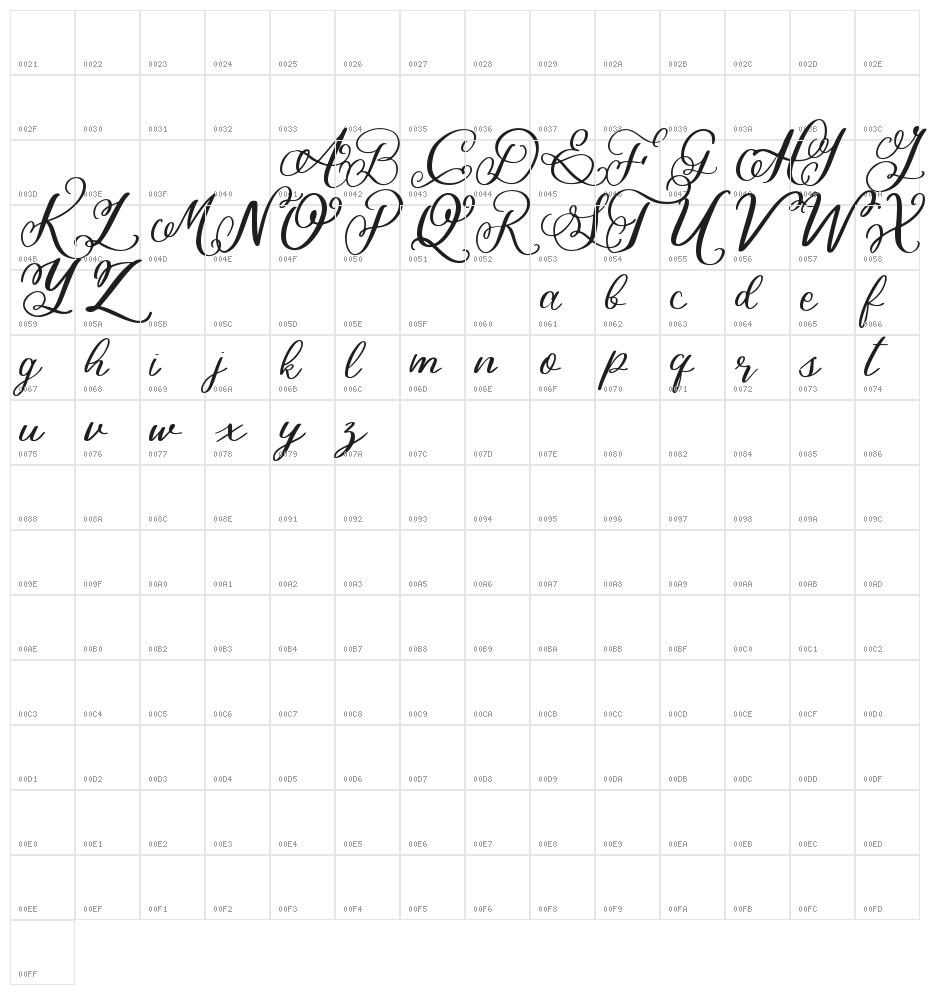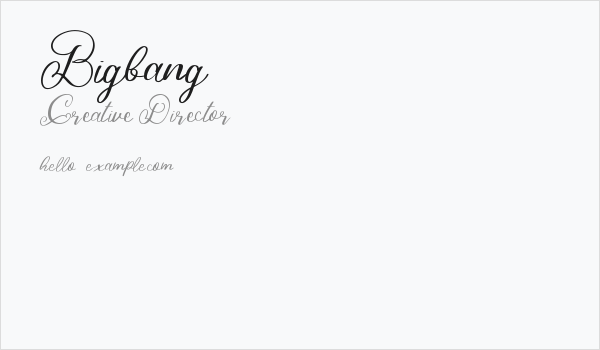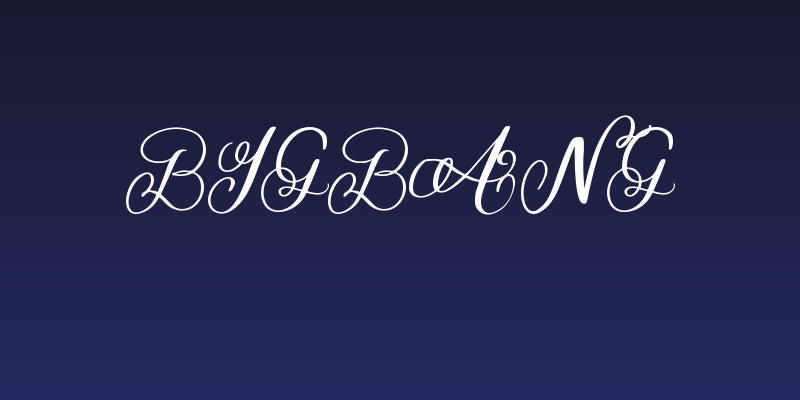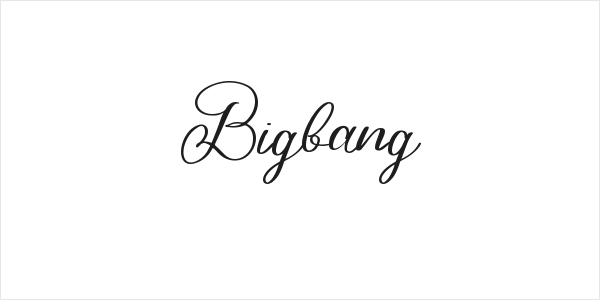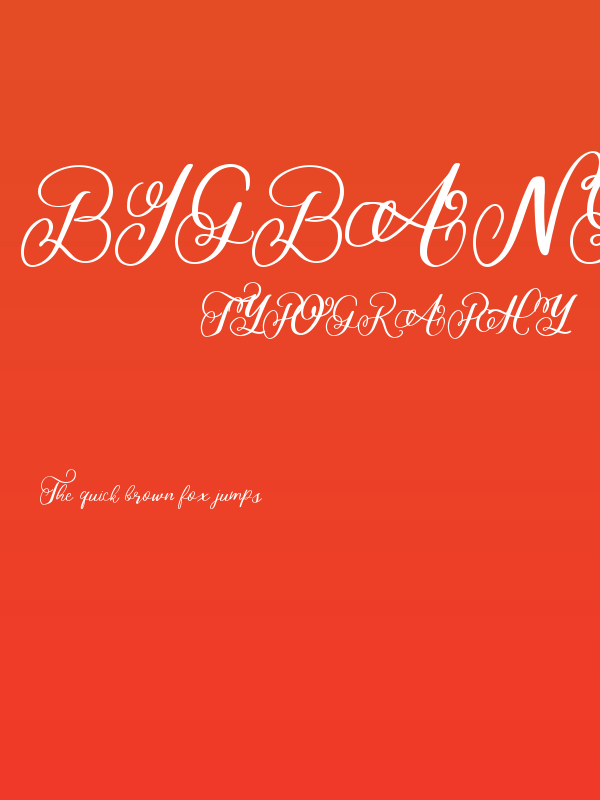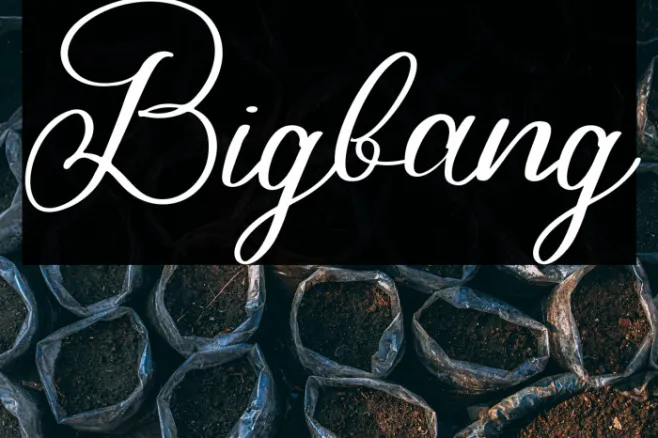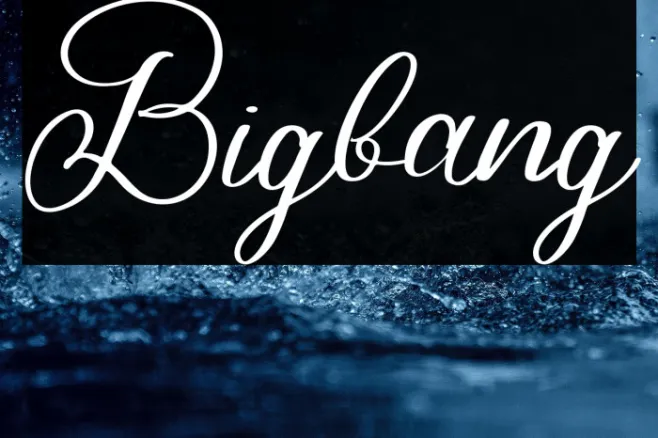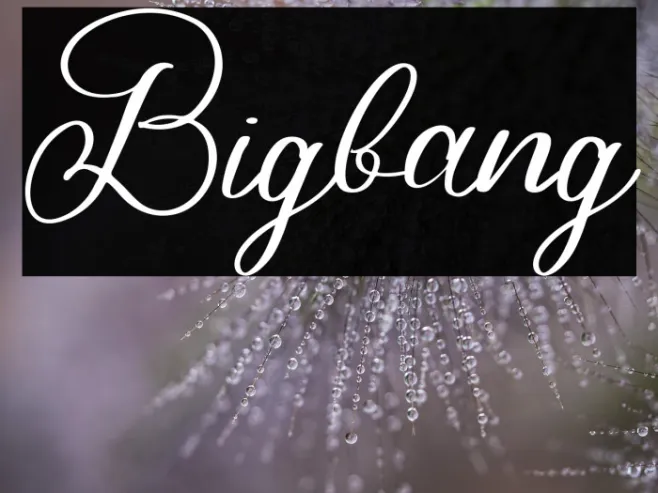
Bigbang Font
Bigbang Description
This elegant script font features a flowing, cursive style with intricate loops and swashes that give it a sophisticated and artistic appearance. The uppercase letters are particularly ornate, with elaborate flourishes that enhance their decorative appeal. The lowercase letters maintain a consistent, smooth flow, making them highly legible despite their decorative nature. The font's overall design is reminiscent of classic calligraphy, with a modern twist that makes it suitable for a variety of contemporary applications. The characters are well-balanced, with a harmonious blend of thick and thin strokes that add to its visual interest.
| Proposed Projects | Ideal for wedding invitations, elegant branding, greeting cards, and high-end product packaging. |